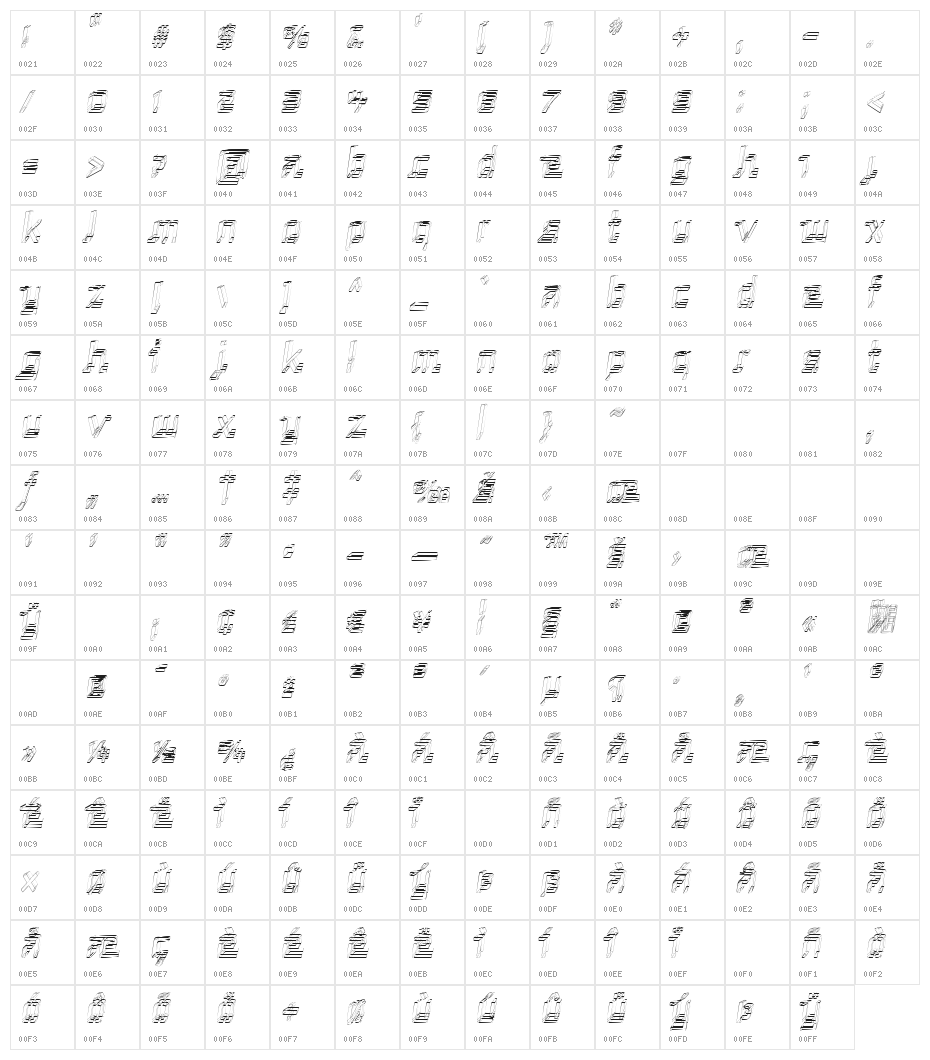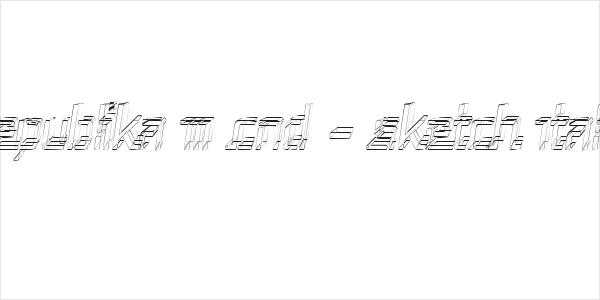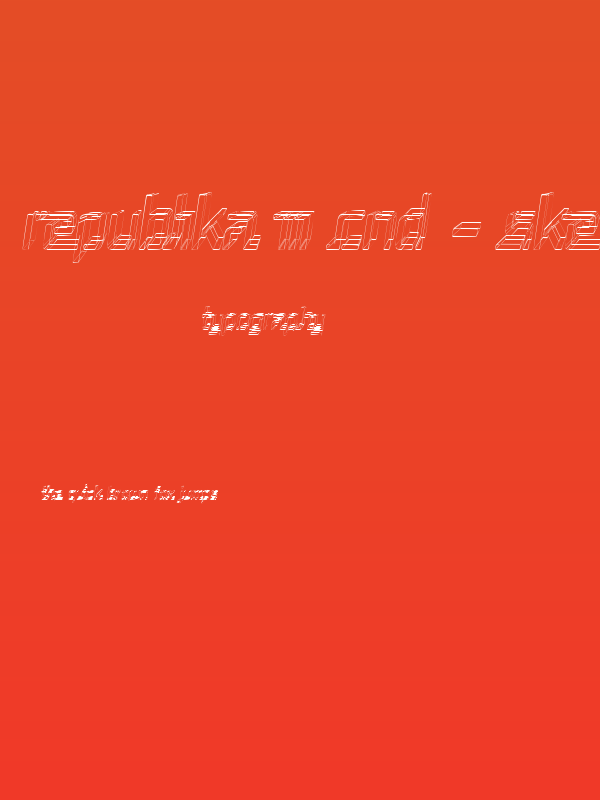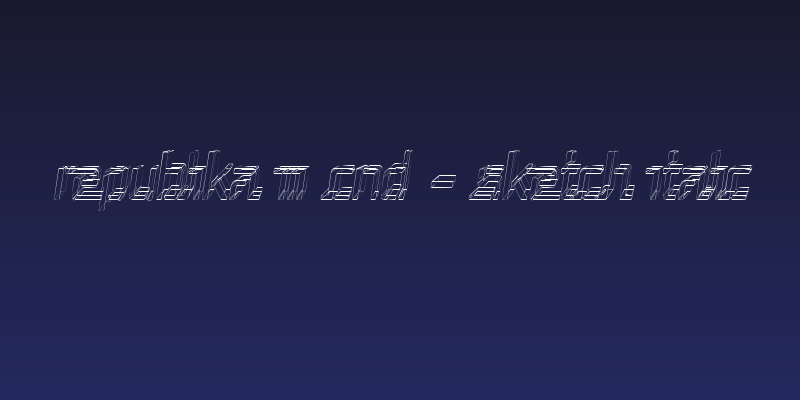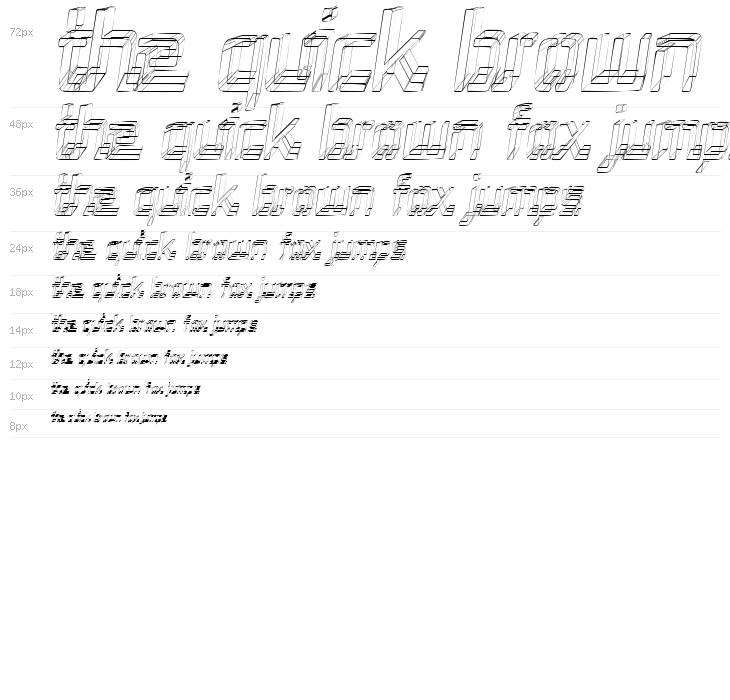
Republika III Cnd - Sketch Italic Font
Republika III Cnd - Sketch Italic Description
This font features a unique, sketch-like appearance with a condensed structure and italic slant. The characters are outlined with a hand-drawn effect, giving them a dynamic and artistic feel. The uppercase and lowercase letters maintain a consistent style, with sharp angles and geometric shapes. Numbers and special characters follow the same aesthetic, ensuring uniformity across all glyphs. The font's design is both modern and playful, making it suitable for creative projects that require a distinctive and eye-catching typeface.